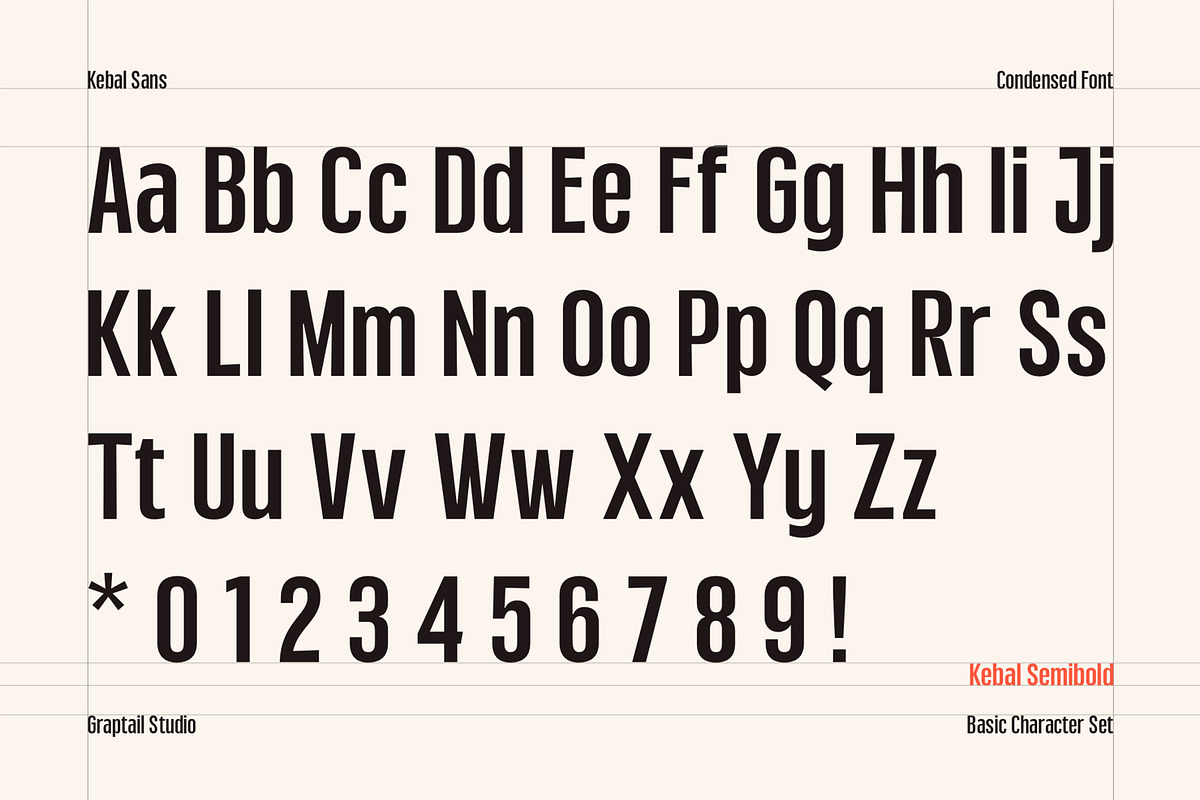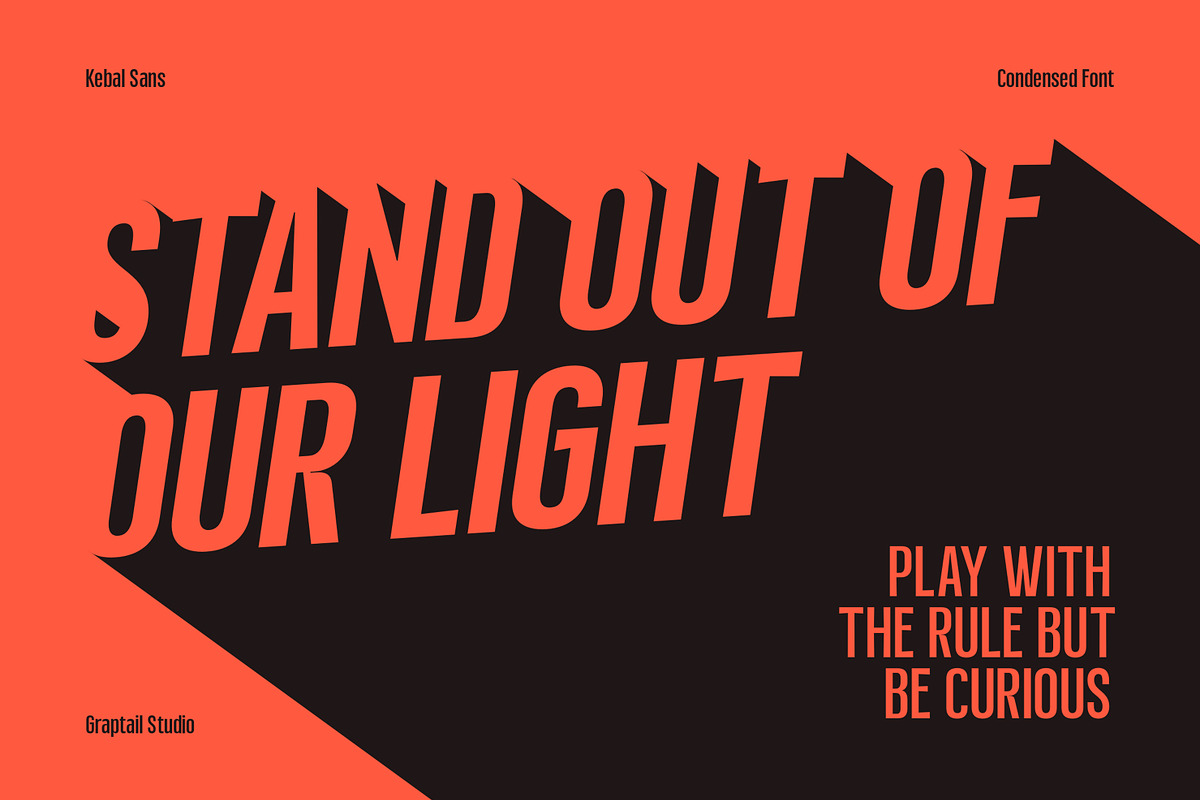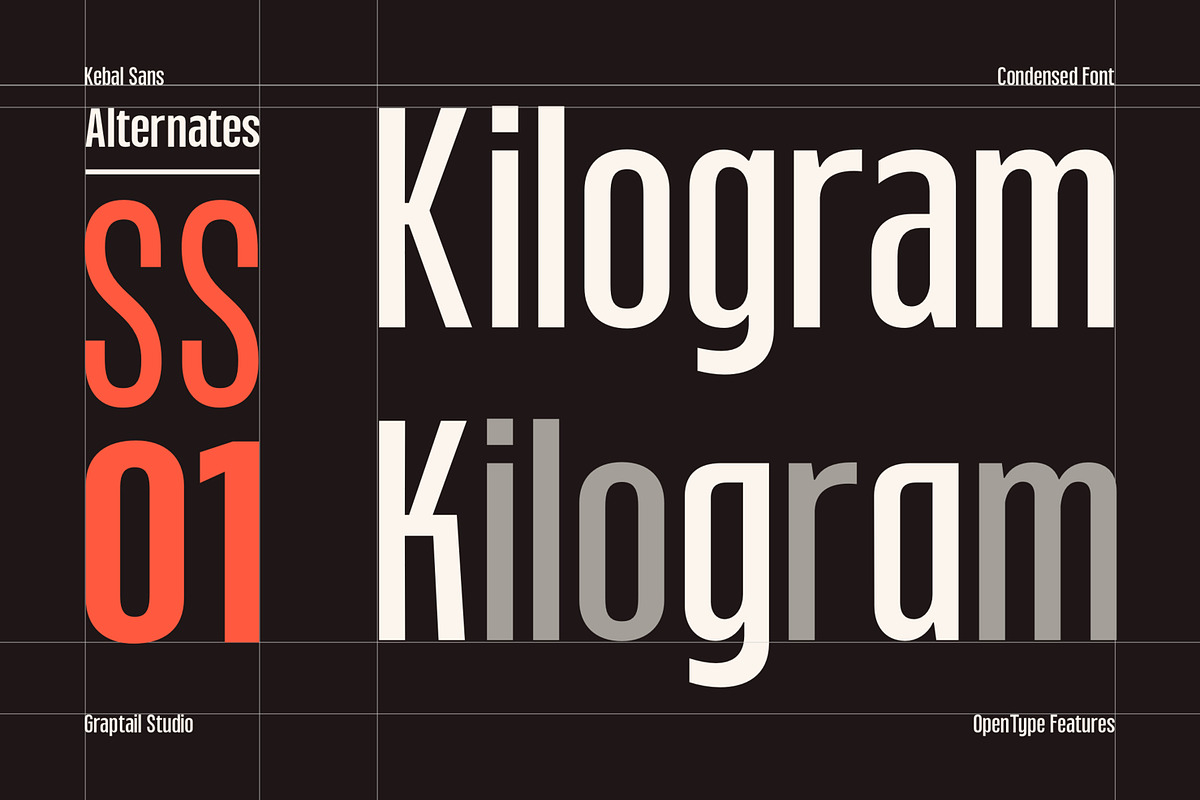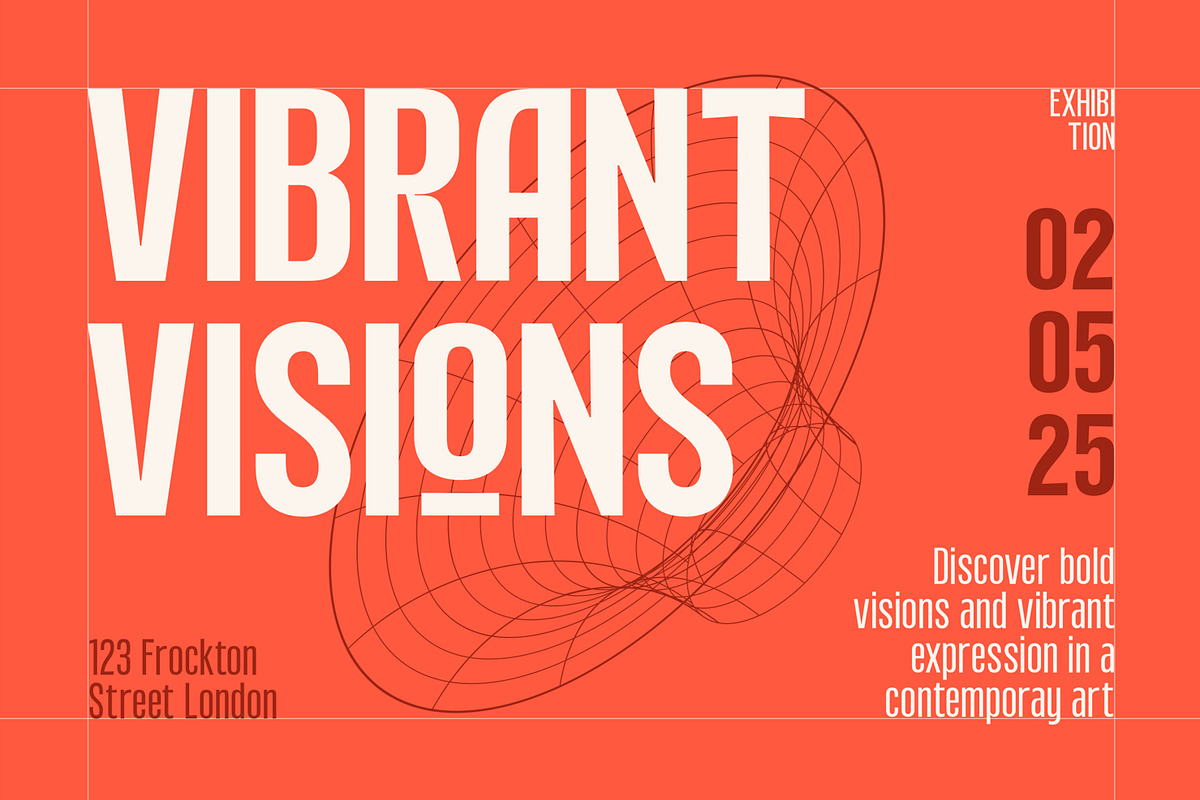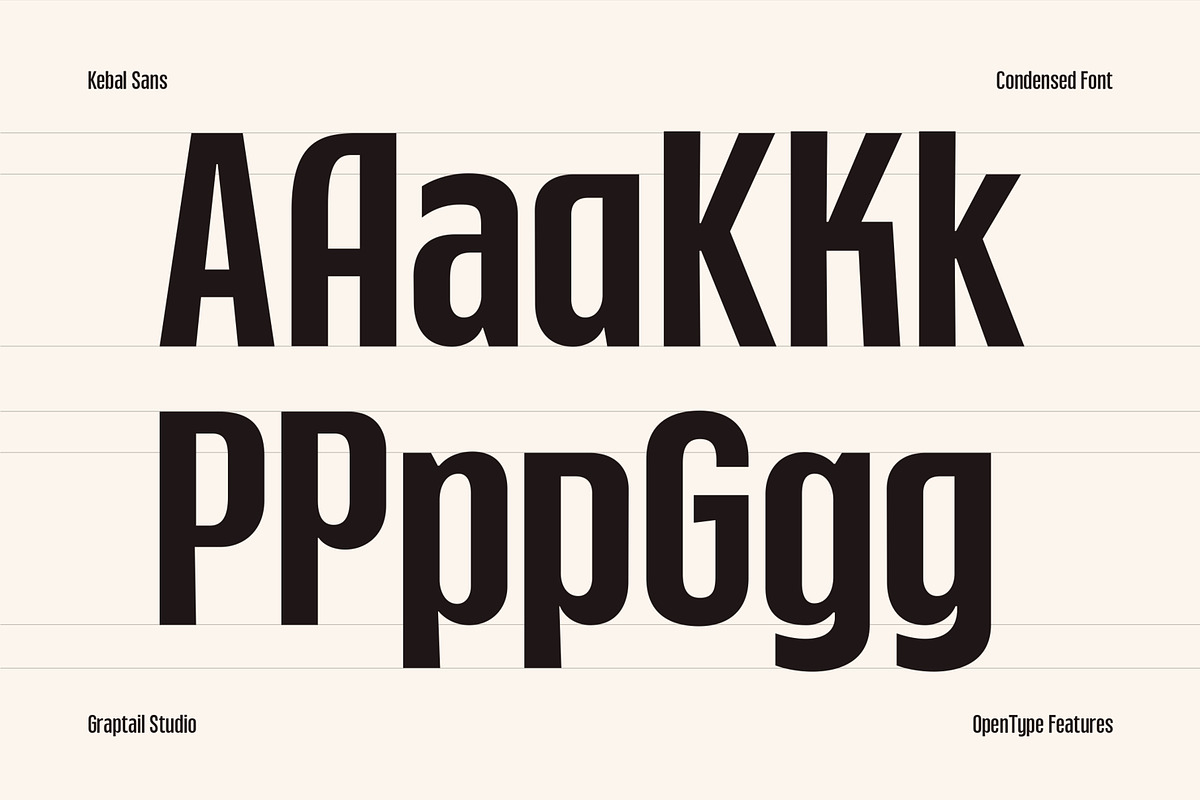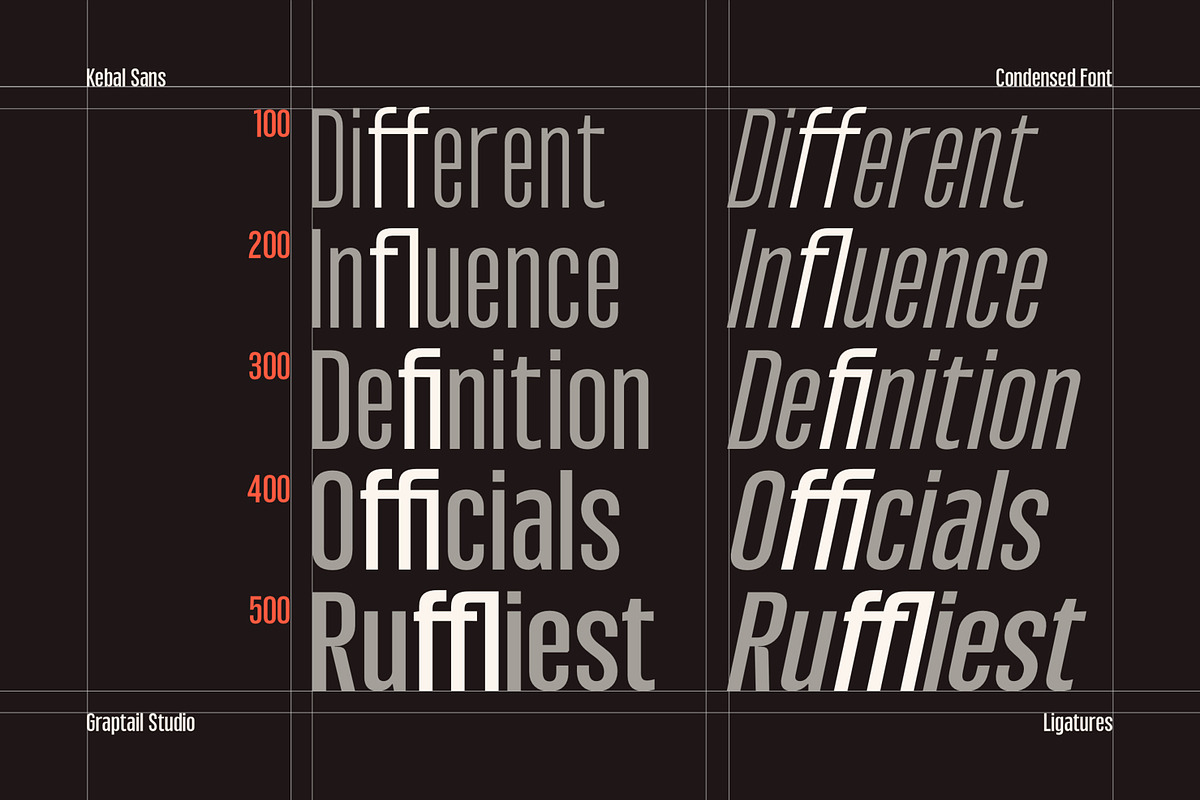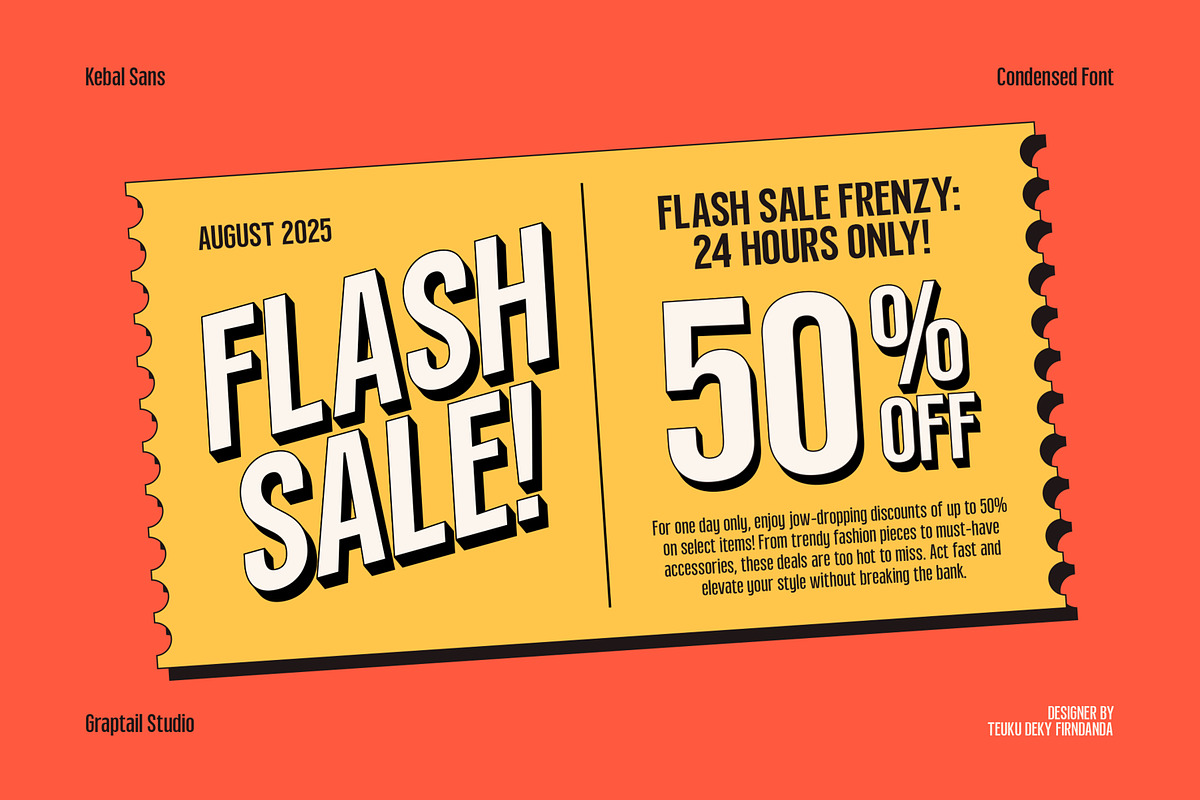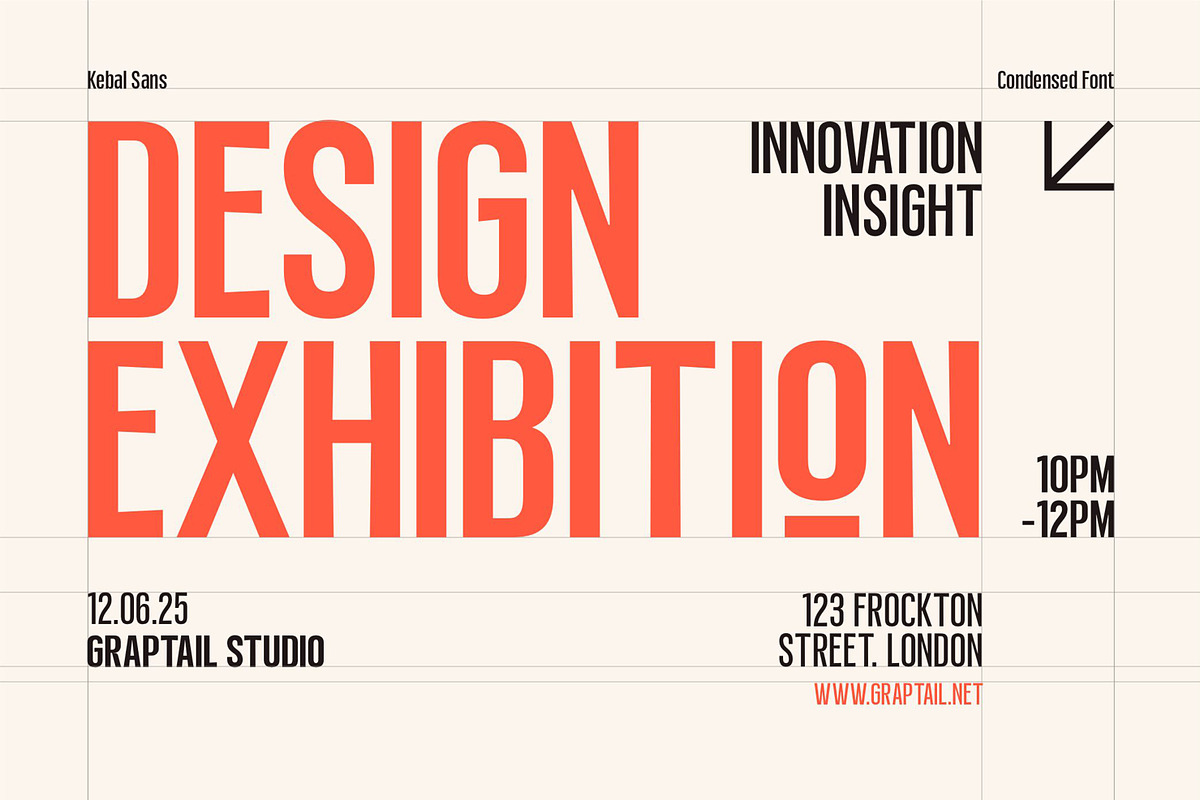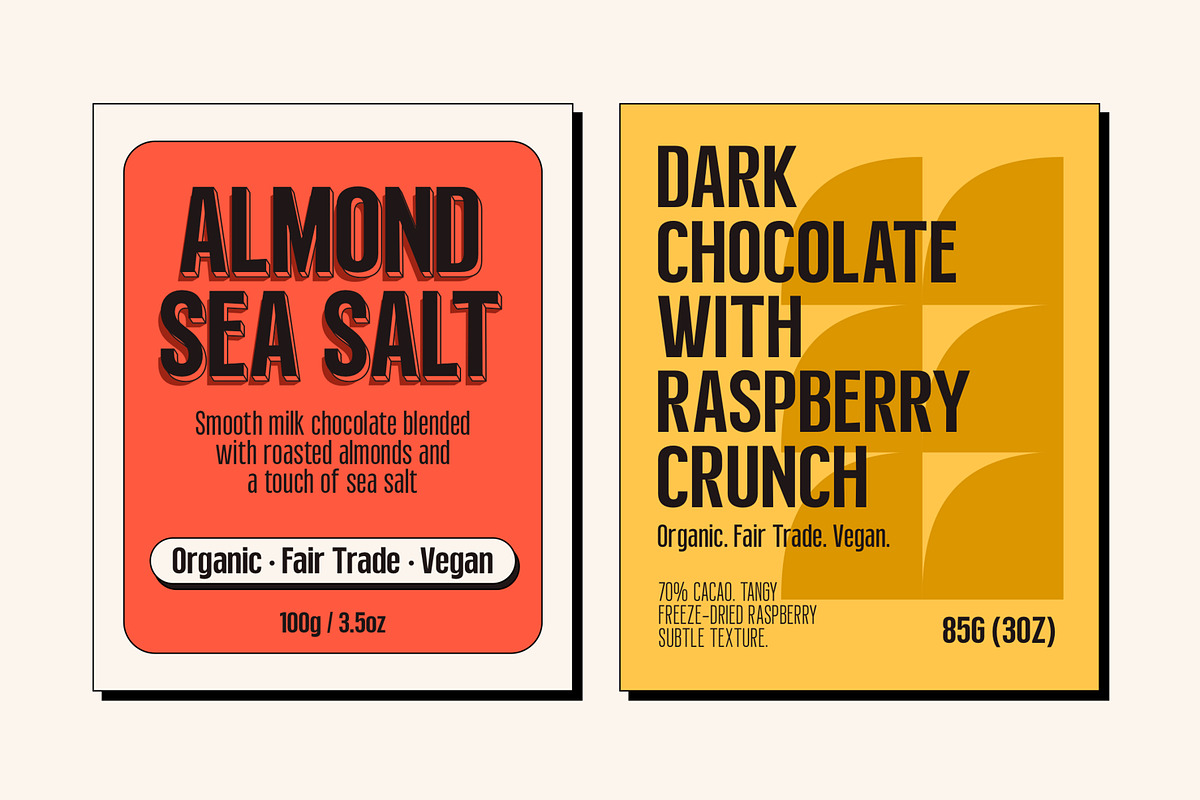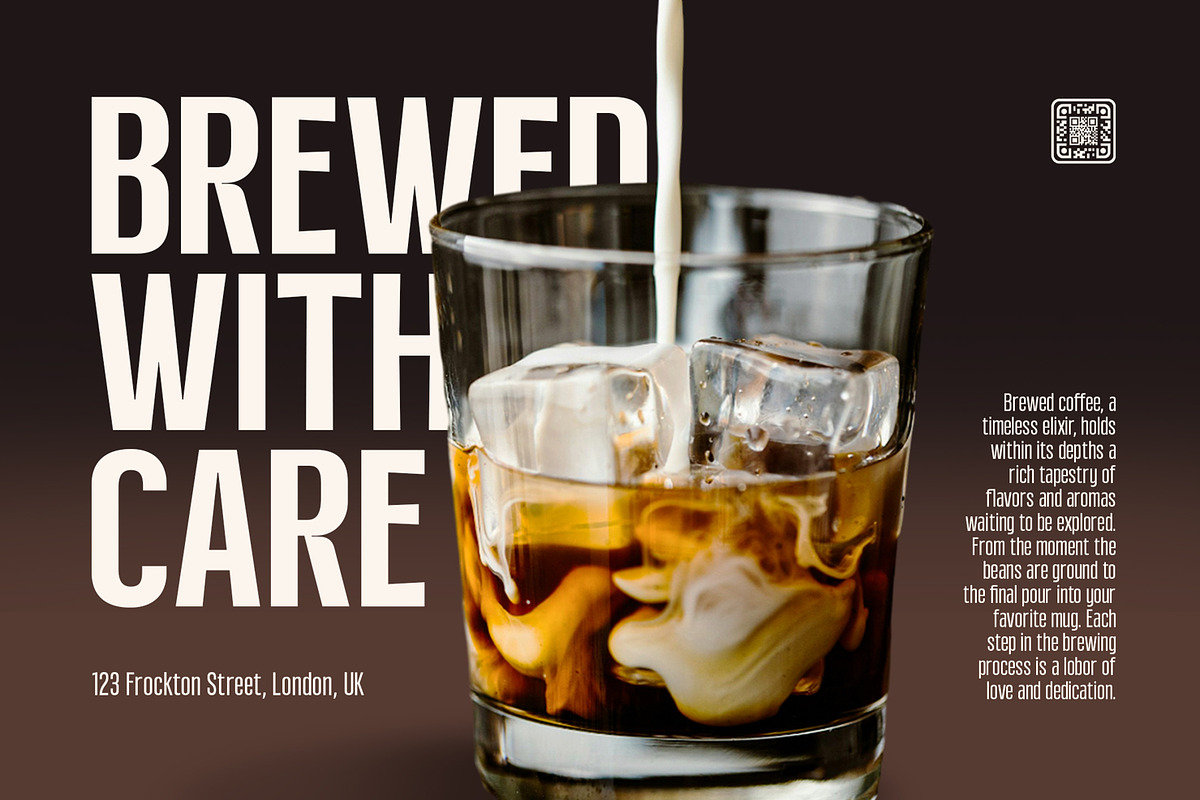
Kebal Sans - Condensed Font
Kebal Sans is a condensed sans-serif font designed to be bold, modern, and versatile. As a variable font, it offers 7 weights—from Thin to Bold—allowing for smooth typographic flexibility while maintaining strong visual consistency.
This typeface supports both Plain and Italic styles, and includes alternates for added expression and edge. Each character is crafted with precise geometry and a confident structure, making Kebal Sans an ideal choice for branding, editorials, signage, posters, and bold headlines.
- 7 Weights
- Plain & Italic
- OpenType Features
Kebal Sans lets your design speak with clarity and strength—because in a world full of noise, confidence is best shown through detail